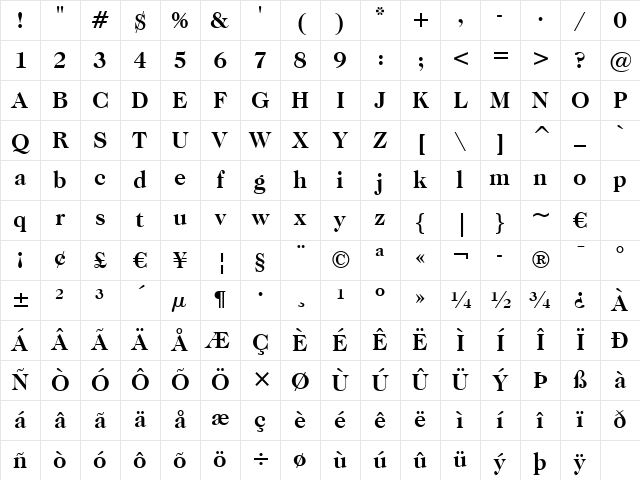
Caslon224 Bk BT Bold Free Font
Caslon224 Bk BT Bold
Design Context for Caslon224 Bk BT
Caslon224 Bk BT is a composed and adaptable typeface that performs quietly and consistently across a wide range of design contexts. Its bold stroke weight gives it real presence on the page.